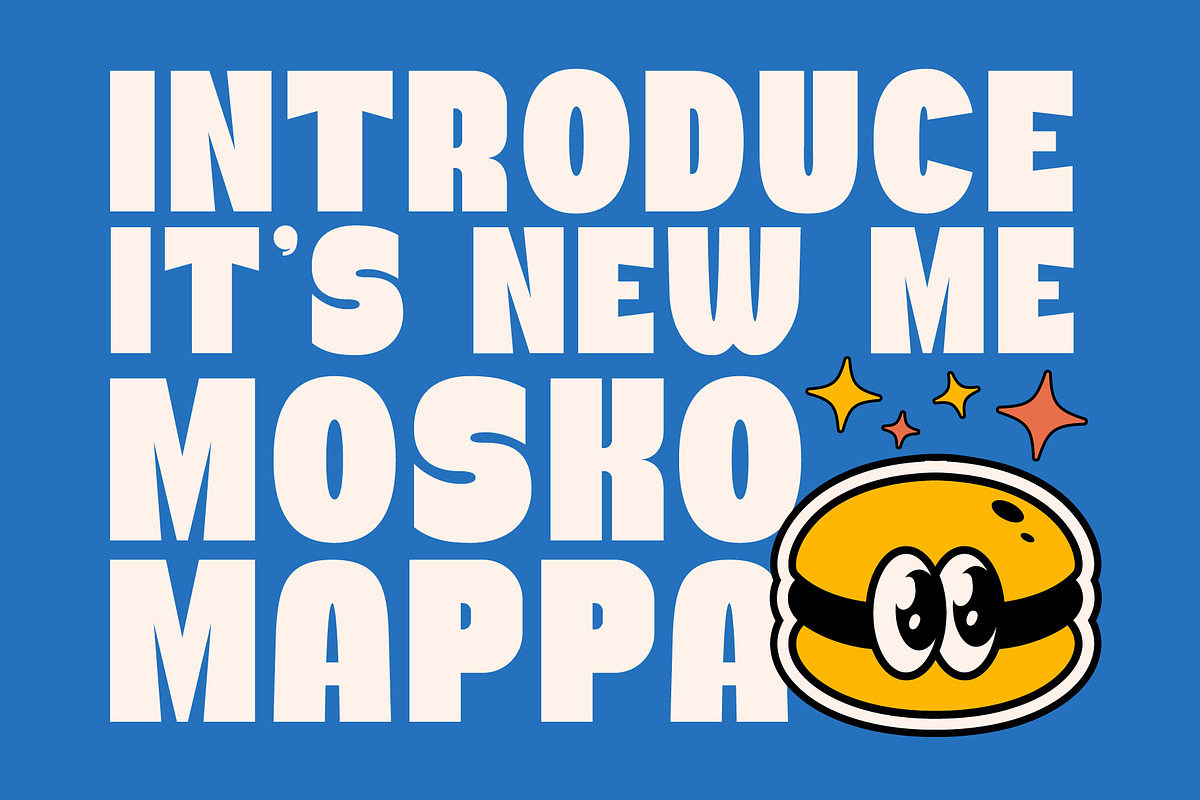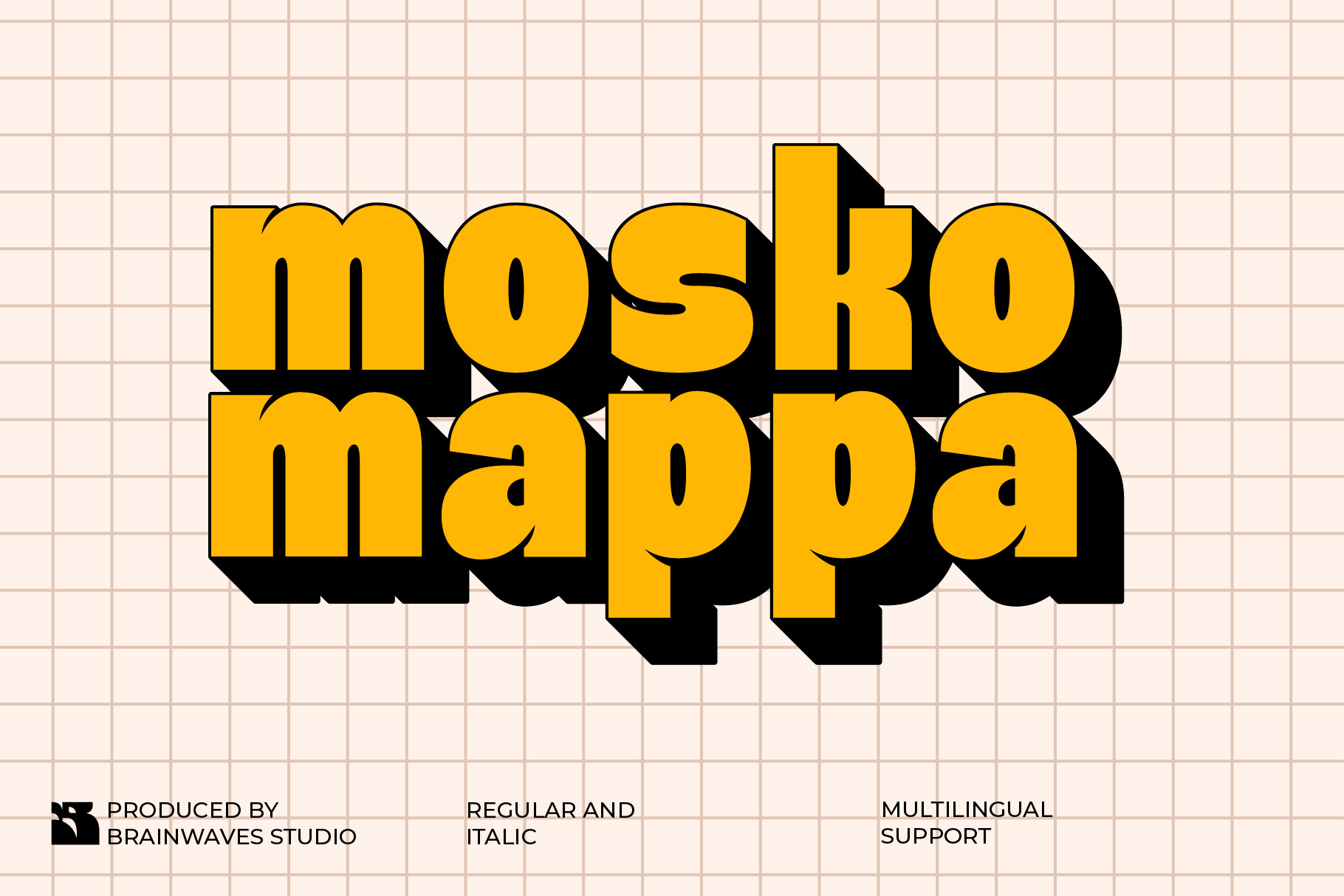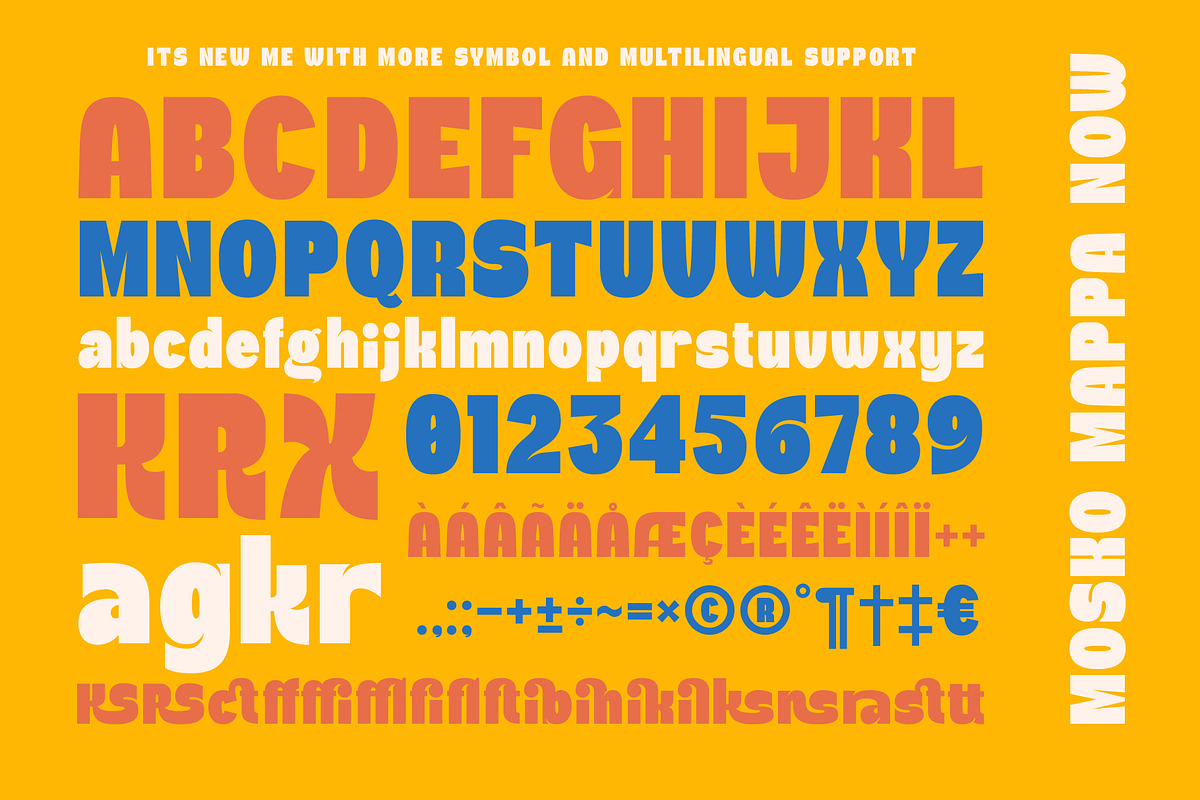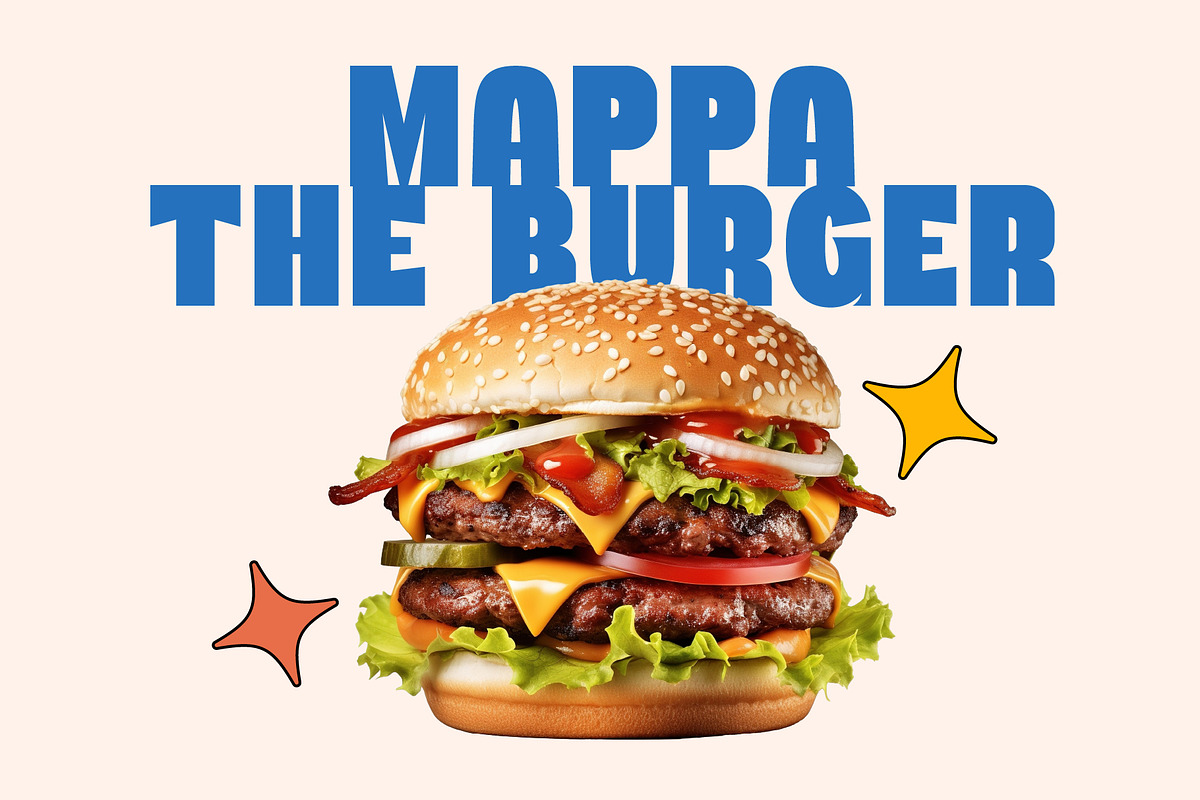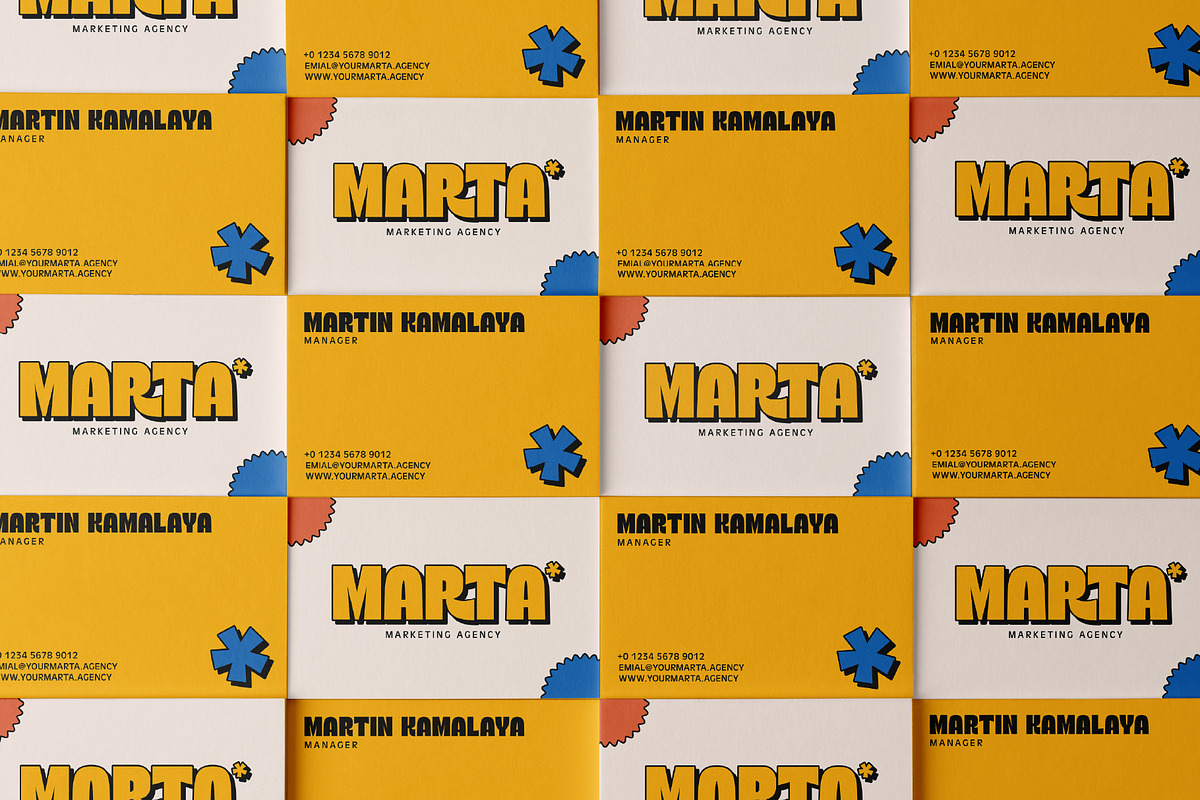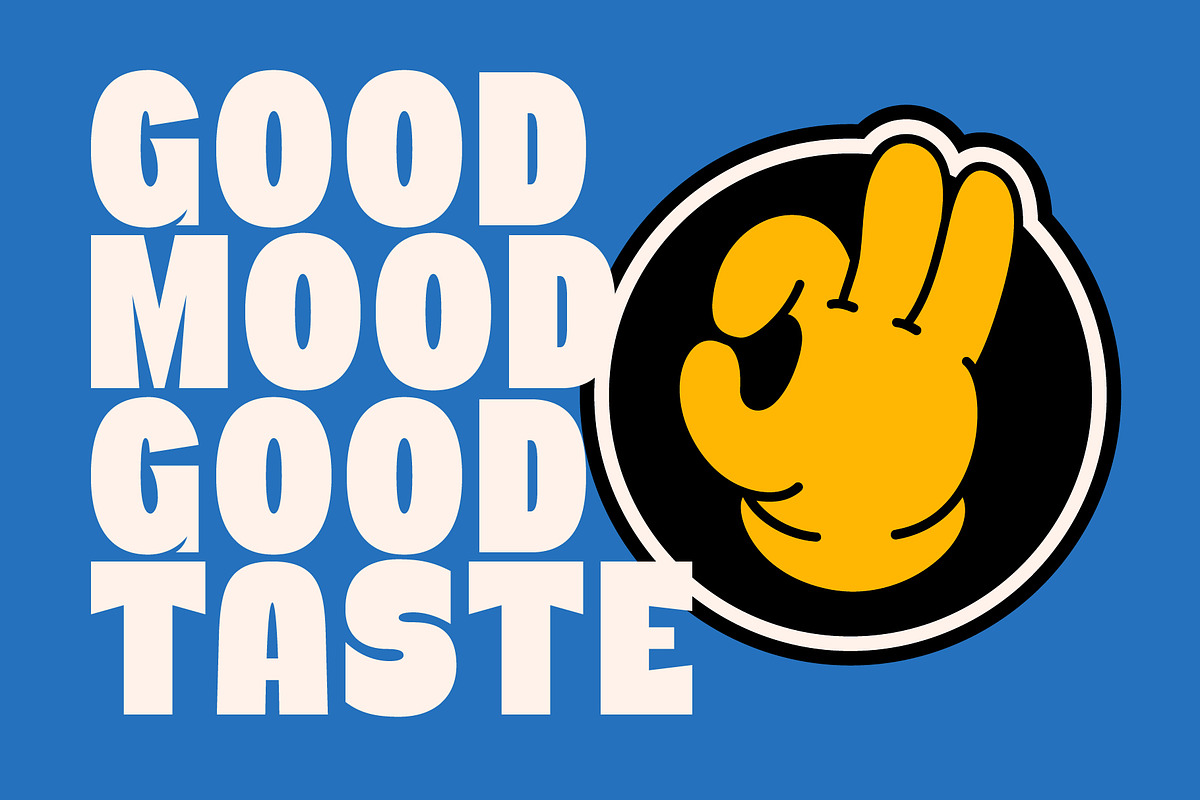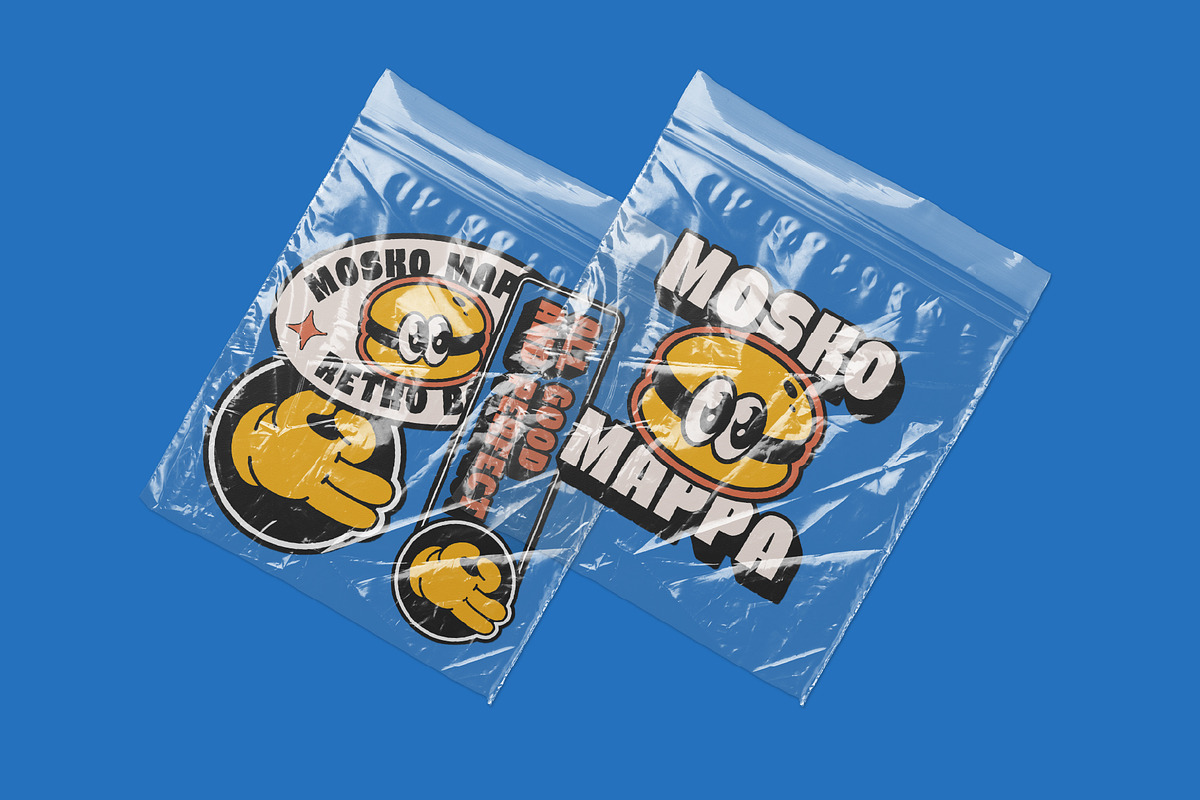
Mosko Mappa Now – Bold Display Font
Say hello to Mosko Mappa Now—a chunky, cheeky, and full-of-character display font built to bring instant energy and joy to your designs. With its retro pop culture vibes, bold rounded edges, and playful shadow details, Mosko Mappa Now feels right at home in logos, food packaging, children’s books, stickers, merch, and funky web headers.
This updated version includes Regular & Italic styles, enhanced multilingual support, and fresh new glyphs to give your design projects the punch they deserve. Whether you're branding a burger joint, making vinyl stickers, or designing colorful kids’ campaigns, Mosko Mappa Now delivers with flavor.